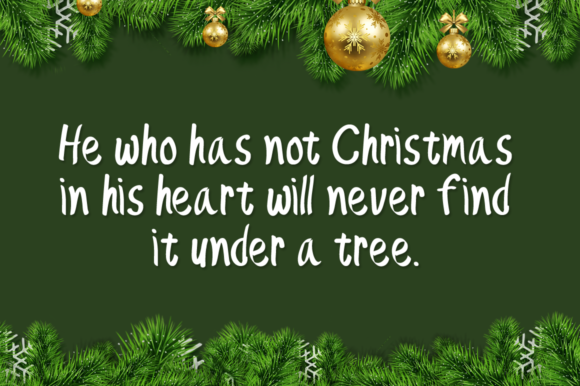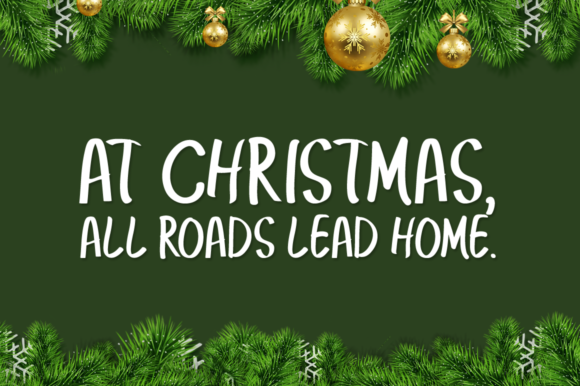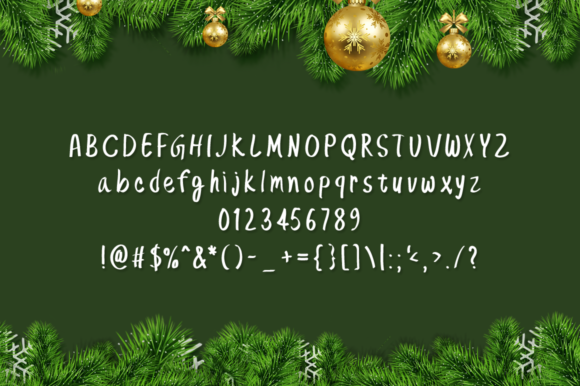
Sweet Christmas Font
About Sweet Christmas Font
Sweet Christmas is a sweet and simple script with a unique style. Use it to elevate any Christmas and winter craft!